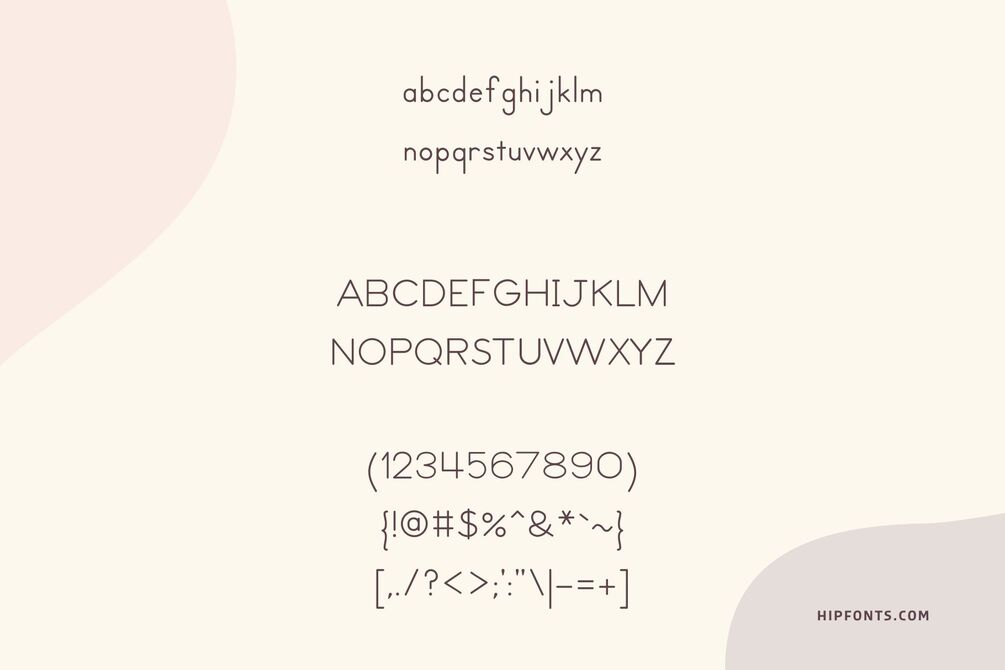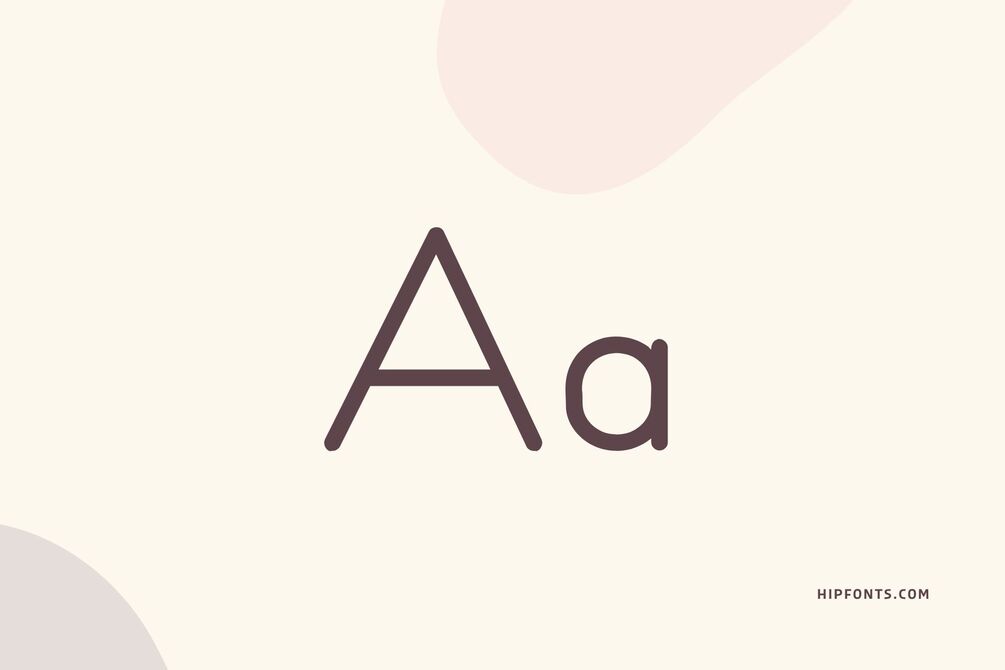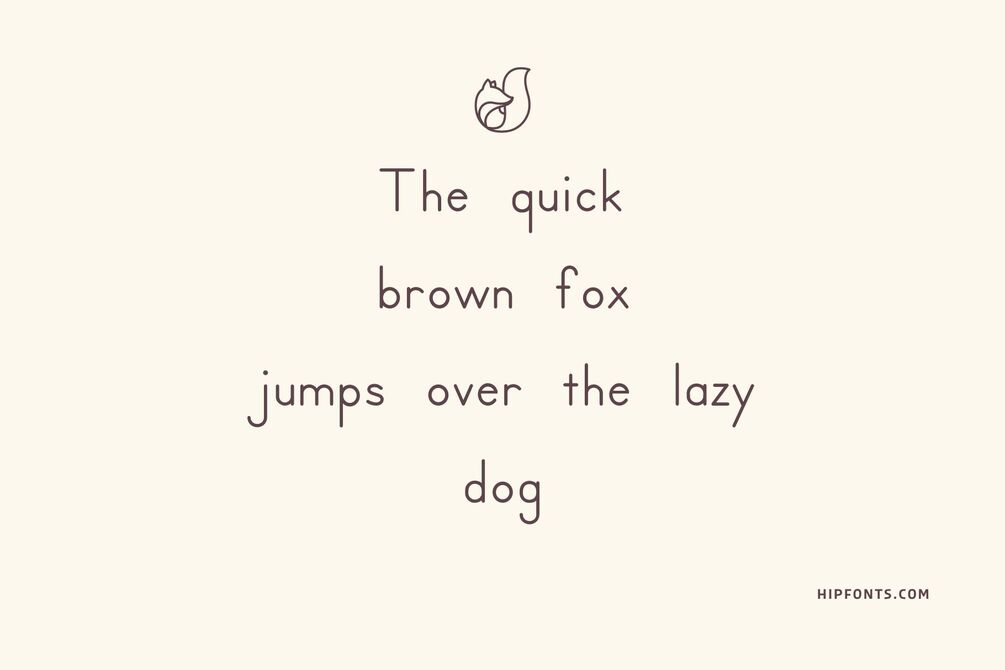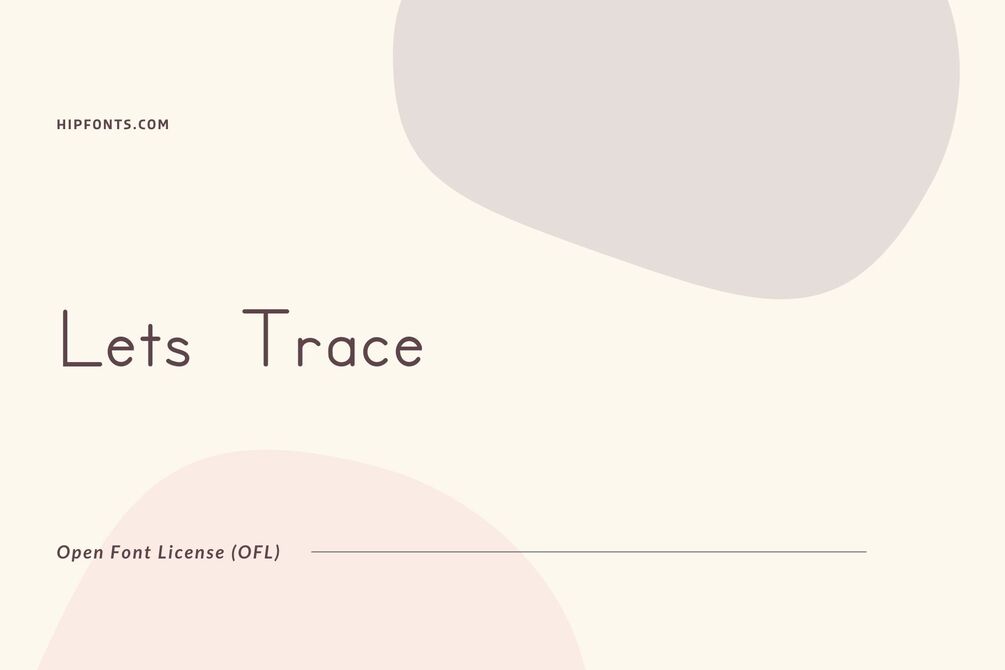
Lets Trace
Lets Trace is a playful and whimsical font that adds a touch of fun and creativity to any design project.
Its hand-drawn appearance and irregular letterforms evoke a sense of childlike imagination and artistic expression. Lets Trace is perfect for designs targeting children or projects that aim to convey a sense of spontaneity and creativity.
This font's organic lines and playful details create a sense of movement and joy, making it an ideal choice for children's books, illustrations, posters, and more. It works well in both digital and print contexts, allowing designers to infuse their creations with a lighthearted and imaginative spirit. Lets Trace brings a touch of wonder and playfulness to your designs, capturing the attention and imagination of viewers.